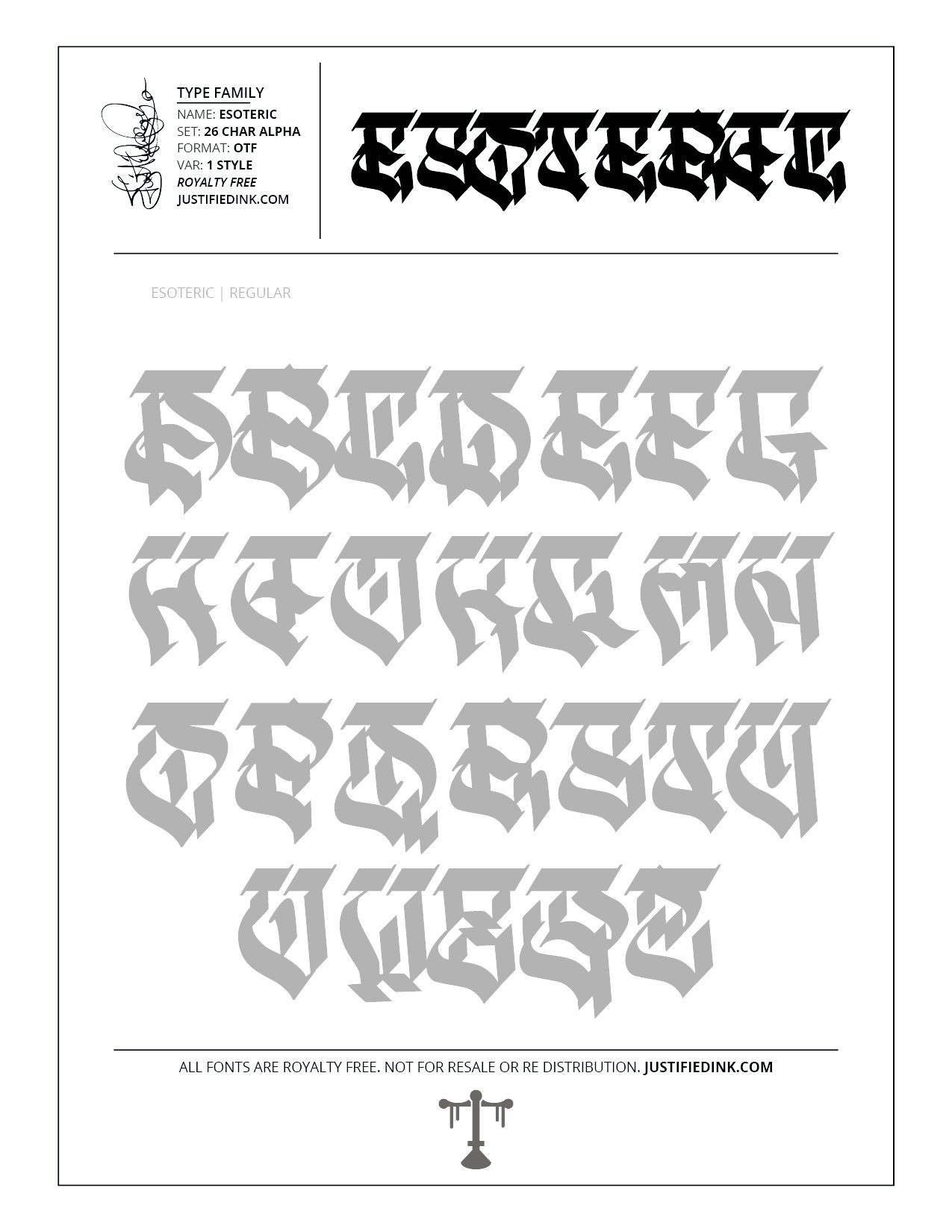
Esoteric (1 style) - Custom Font by Justified Ink
NAME: Esoteric
Esoteric is finding the small details in the arcane and bringing them to the surface. Requiring time in dark and uncomfortable space but ultimately emerging with gems and enlightenment. This font is dedicated to that process by which we all find deeper understanding and experience.
This font is part of the collection by Justified Ink, called Blackletter II. After 15+ years creating, I began to focus on building personal libraries of my work. The Blackletter II Collection was created through writing page after page, and countless hours over a 2 year span of daily practice. Each font from this collection has been hand drawn, manually vectored, and custom set as a type-able font. It comes in a full set of 26 char alpha. Each font family has variations in styles and/or non-alpha chars.